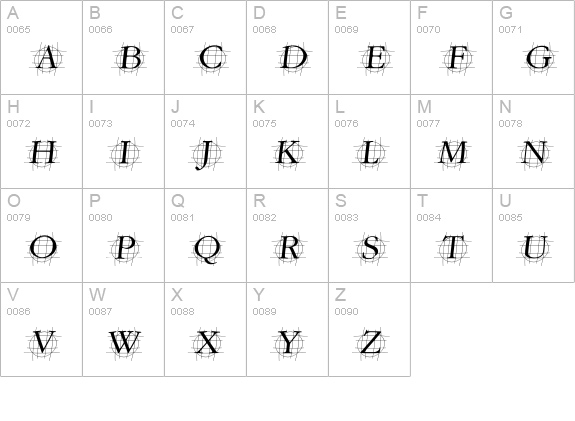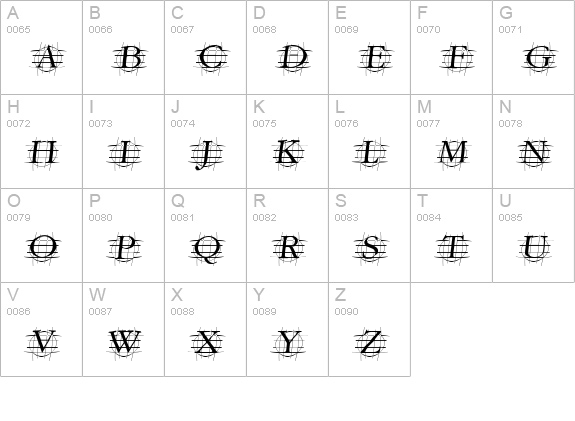
GrafOblique Italic Font Details
GrafOblique Italic is a distinctive, italic variant in the GrafOblique typeface family \xE2\x80\x94 well suited to design and typography projects.
GrafOblique Italic font is a modern and stylish typeface that exudes sophistication and elegance. Its sleek, slanted design adds a touch of flair to any project, making it perfect for both print and digital applications. The italicized letters have a unique and eye-catching look that will make your text stand out. Best of all, GrafOblique Italic font is available for free download at FontsMarket.com. This means you can easily access this high-quality font without any cost, allowing you to enhance your designs without breaking the bank. Don't miss out on this opportunity to elevate your typography game with GrafOblique Italic font.